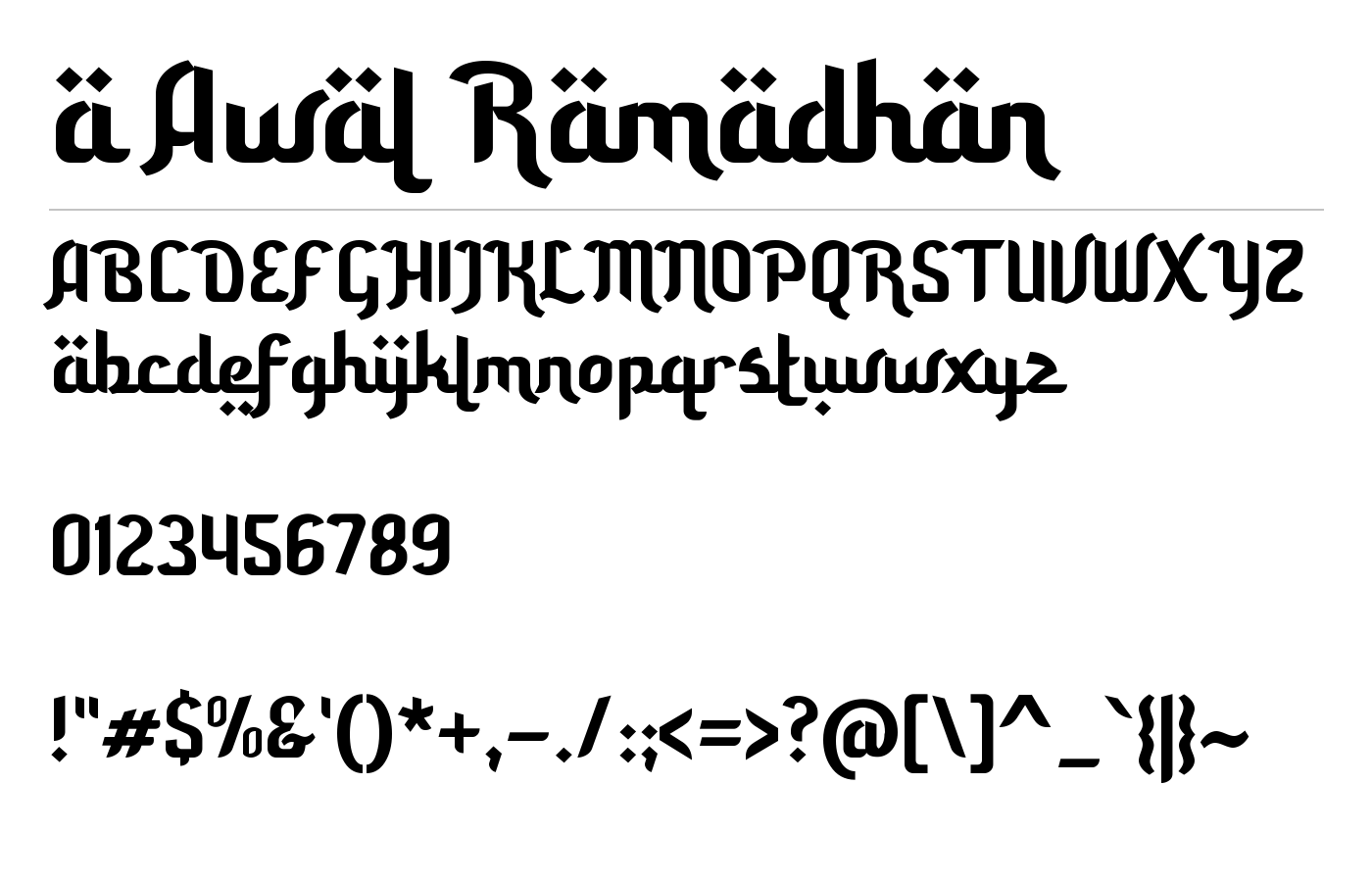
Awal Ramadhan is a distinctive blackletter-inspired sans serif font with a bold weight and medium width that blends traditional calligraphic elements with modern geometric shapes. Its sharp angled strokes and unique letterforms give it an artistic, slightly gothic personality, making it ideal for headlines, branding, and designs that seek an elegant yet edgy, culturally rich vibe. This font works well in projects that want to stand out with a strong, decorative style while maintaining readability and a contemporary feel.
a Awal Ramadhan Font
About a Awal Ramadhan Font